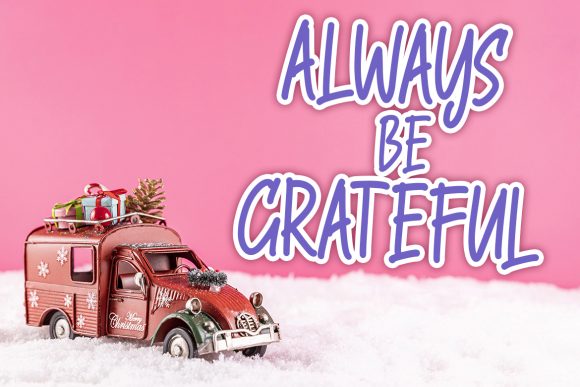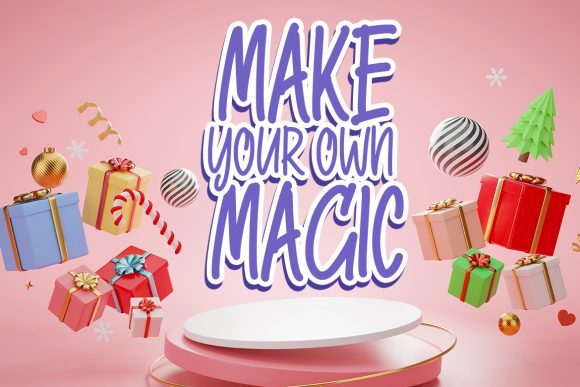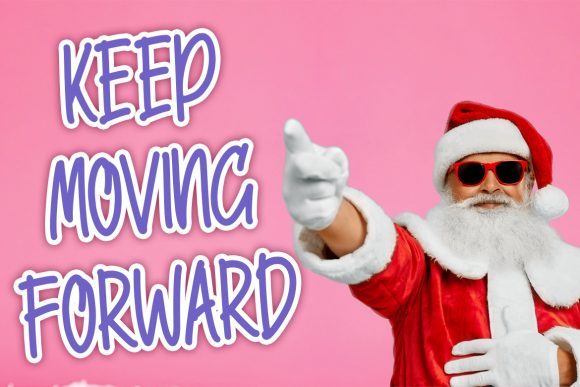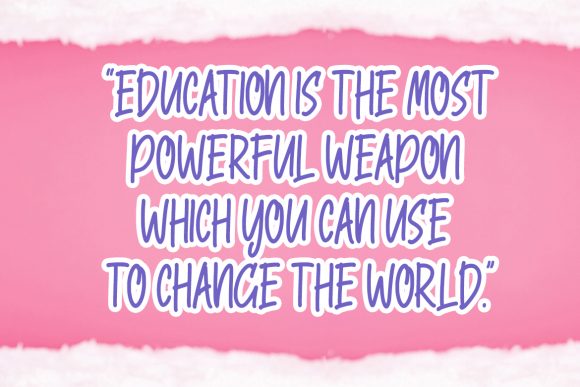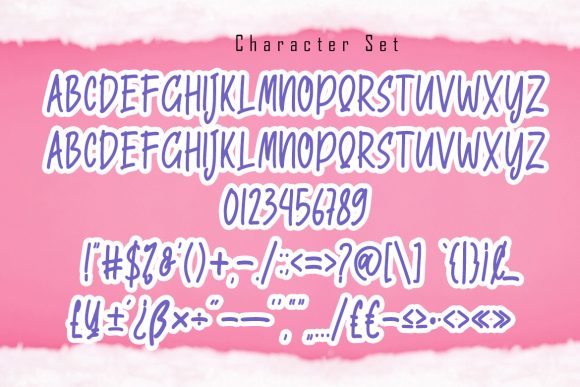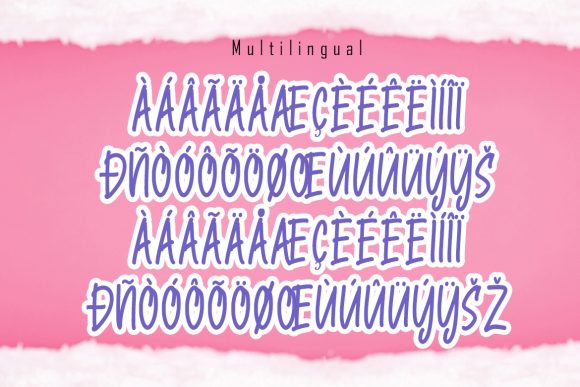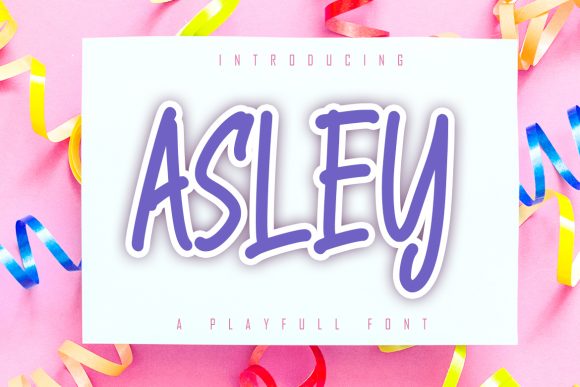
Introducing Asley Font: A Simple yet Stunning Handwritten Font
Are you a designer or crafter looking for a font that can add a touch of personality to your projects? Look no further than Asley Font, a simple and cute handwritten font that’s perfect for a variety of designs. In this article, we’ll explore the features and benefits of Asley Font, and show you how to make the most of its endless possibilities.
What is Asley Font?
Asley Font is a beautiful handwritten font that’s designed to be easy to read and visually appealing. Its simplicity and cuteness make it perfect for a wide range of projects, from posters and flyers to prints and digital designs. With its clean lines and effortless charm, Asley Font is sure to become a favorite in your font collection.
Key Features of Asley Font
- Simple and Cute: Asley Font has a playful, handwritten feel that’s perfect for designs that need a personal touch.
- Highly Versatile: Whether you’re working on a poster, flyer, print, or digital design, Asley Font is sure to look stunning.
- Easy to Read: With its clear and clean lines, Asley Font is easy to read, even at small sizes.
- Endless Possibilities: From crafting and scrapbooking to graphic design and digital art, Asley Font can be used in a wide range of creative projects.
How to Use Asley Font in Your Designs
Using Asley Font in your designs is easy. Here are a few tips to get you started:
- Pair it with Other Fonts: Asley Font pairs well with a variety of other fonts, from bold and modern to elegant and scripty.
- Experiment with Colors: Asley Font looks great in a range of colors, from bright and bold to soft and pastel.
- Play with Sizes: Asley Font can be used at a variety of sizes, from large and bold to small and delicate.
- Add Decorations: Consider adding decorations, such as flowers or stars, to give your designs an extra touch of personality.
Design Ideas Using Asley Font
Asley Font is a versatile font that can be used in a wide range of designs. Here are a few ideas to get you started:
- Posters and Flyers: Use Asley Font to create eye-catching posters and flyers for events, promotions, and more.
- Prints and Art: Asley Font is perfect for creating beautiful prints and art, from inspirational quotes to fun and playful illustrations.
- Crafting and Scrapbooking: Add a personal touch to your crafts and scrapbooking projects with Asley Font.
- Digital Designs: Use Asley Font in your digital designs, from social media graphics to website headers.
Asley Font is a simple yet stunning handwritten font that’s perfect for designers and crafters. With its clean lines, effortless charm, and endless possibilities, Asley Font is sure to become a favorite in your font collection. Whether you’re working on a poster, flyer, print, or digital design, Asley Font is sure to look stunning. So why wait? Download Asley Font today and start exploring its endless possibilities!